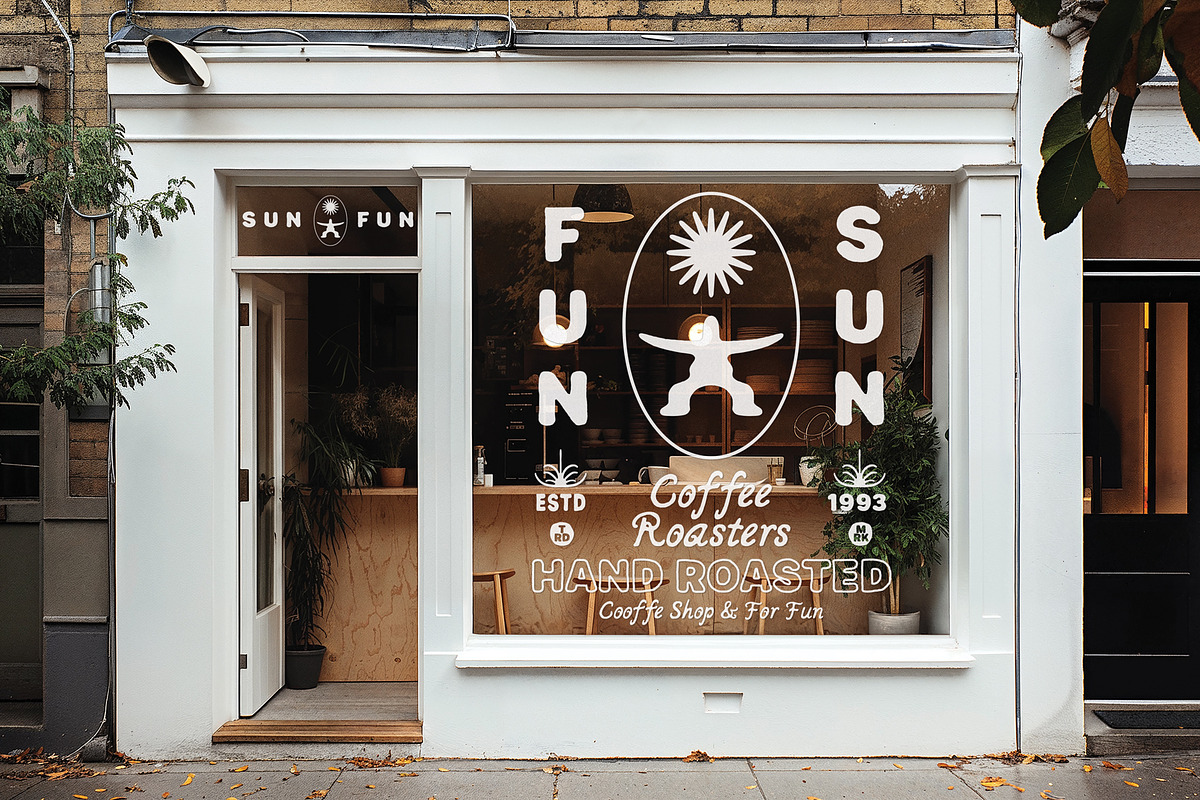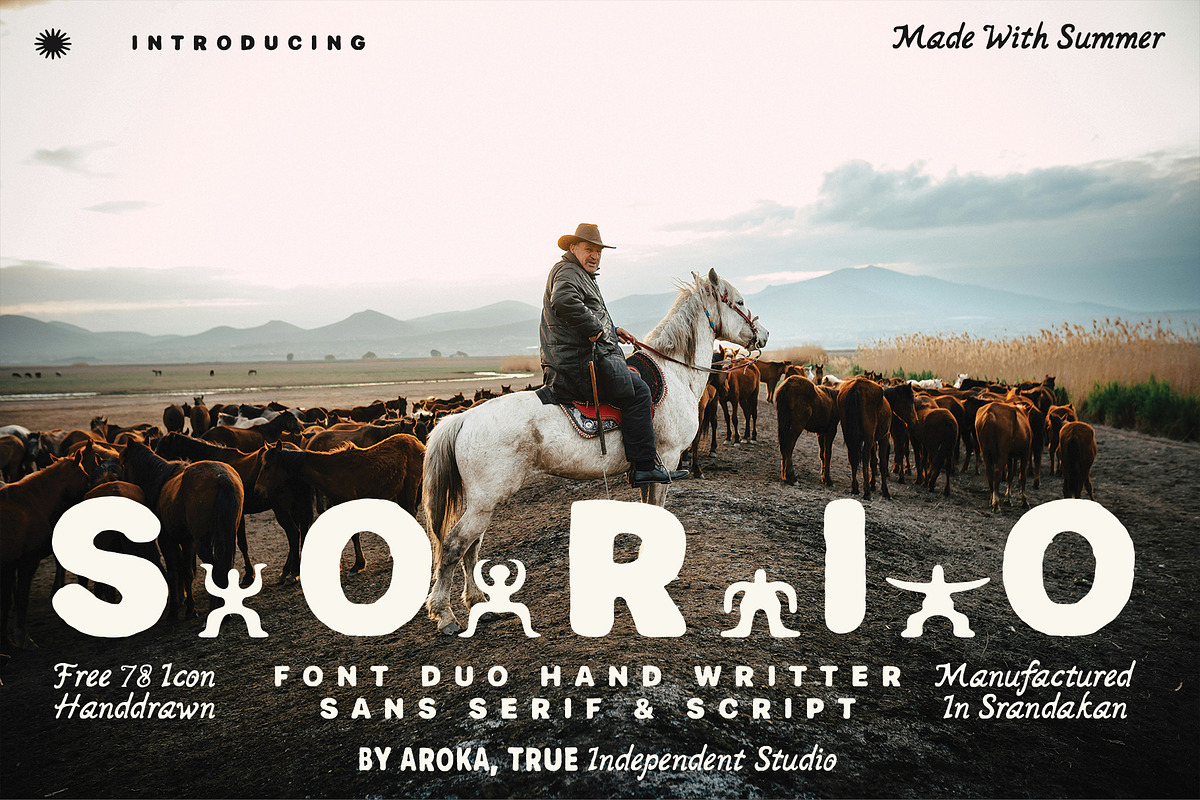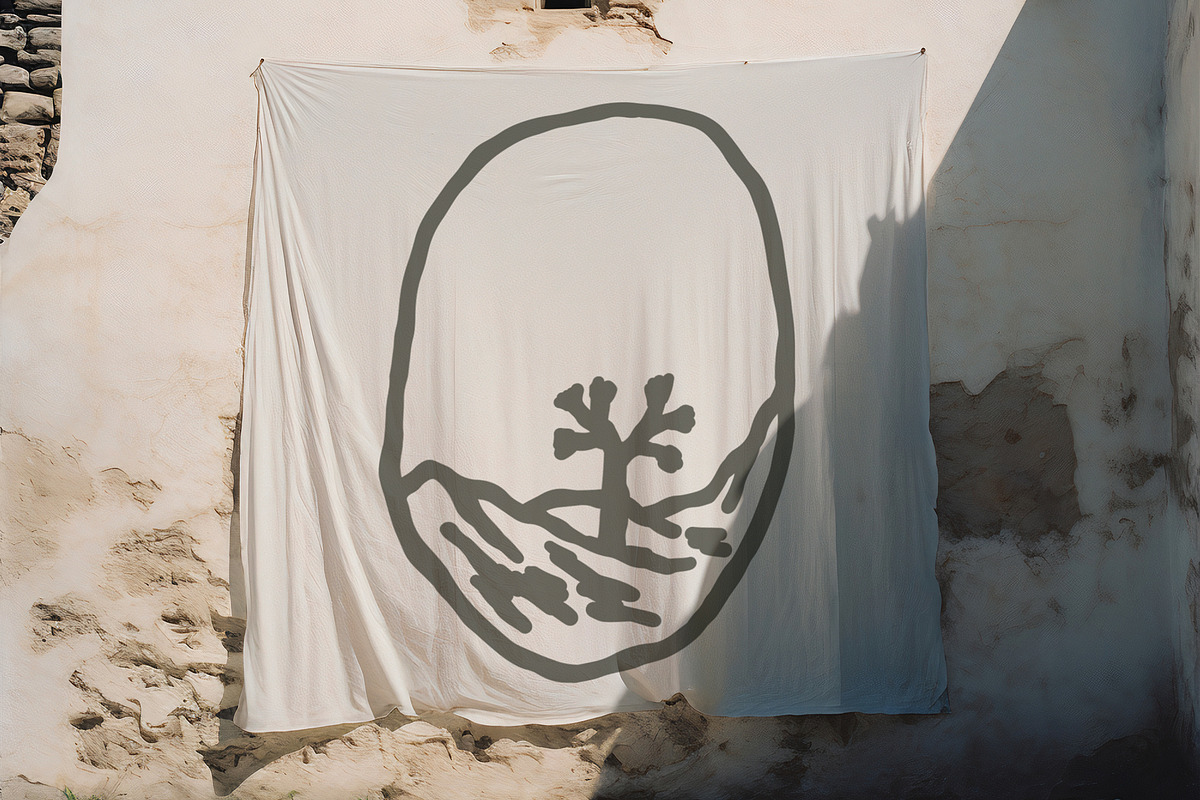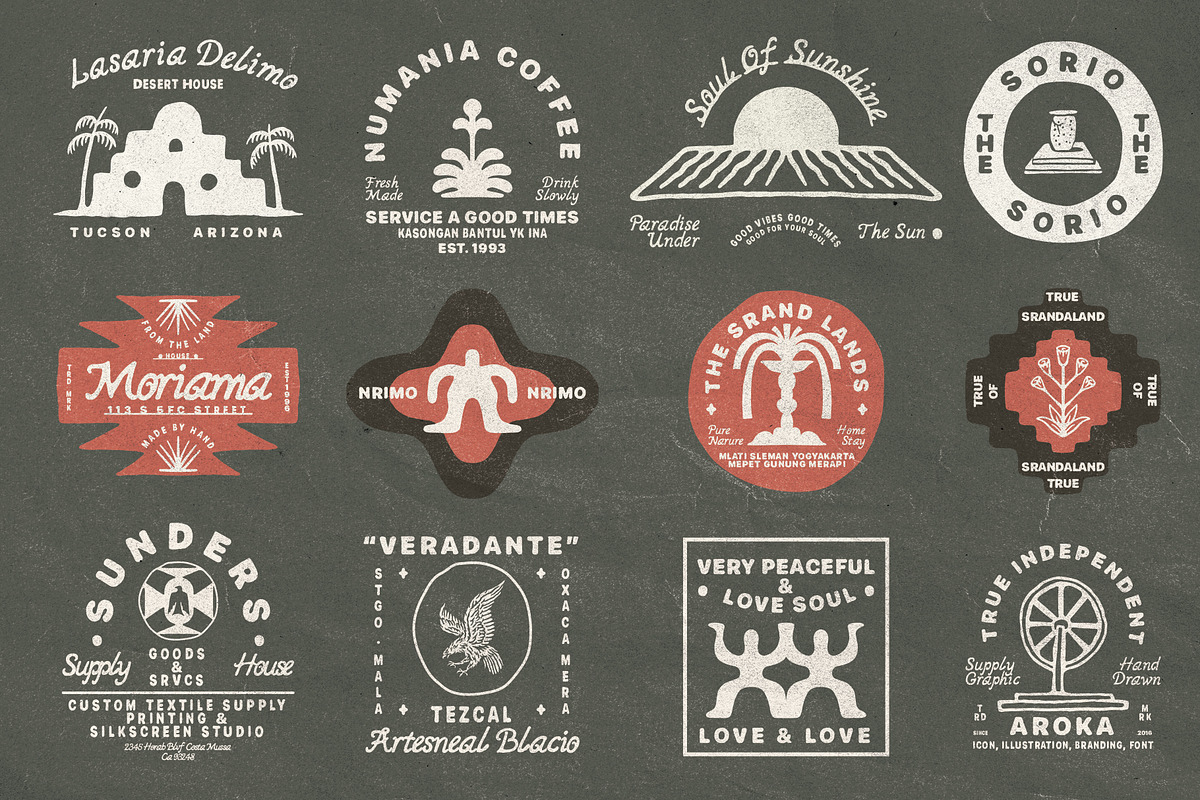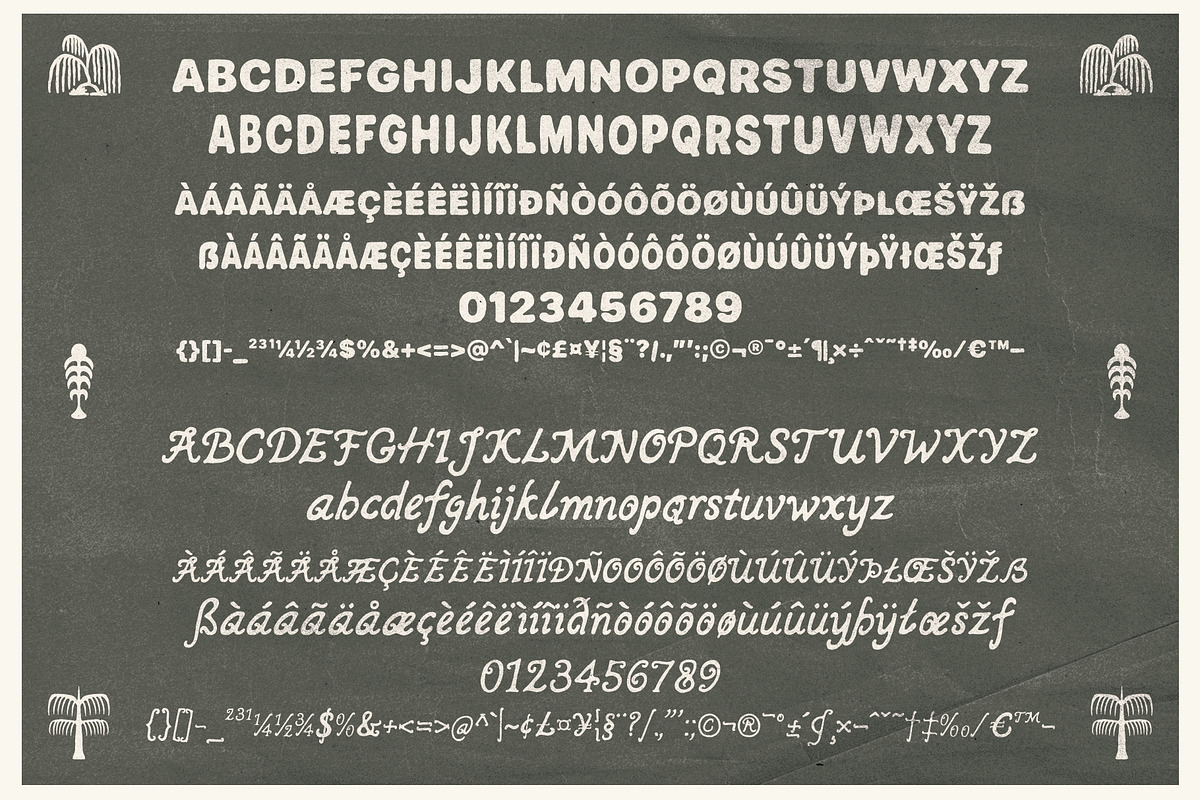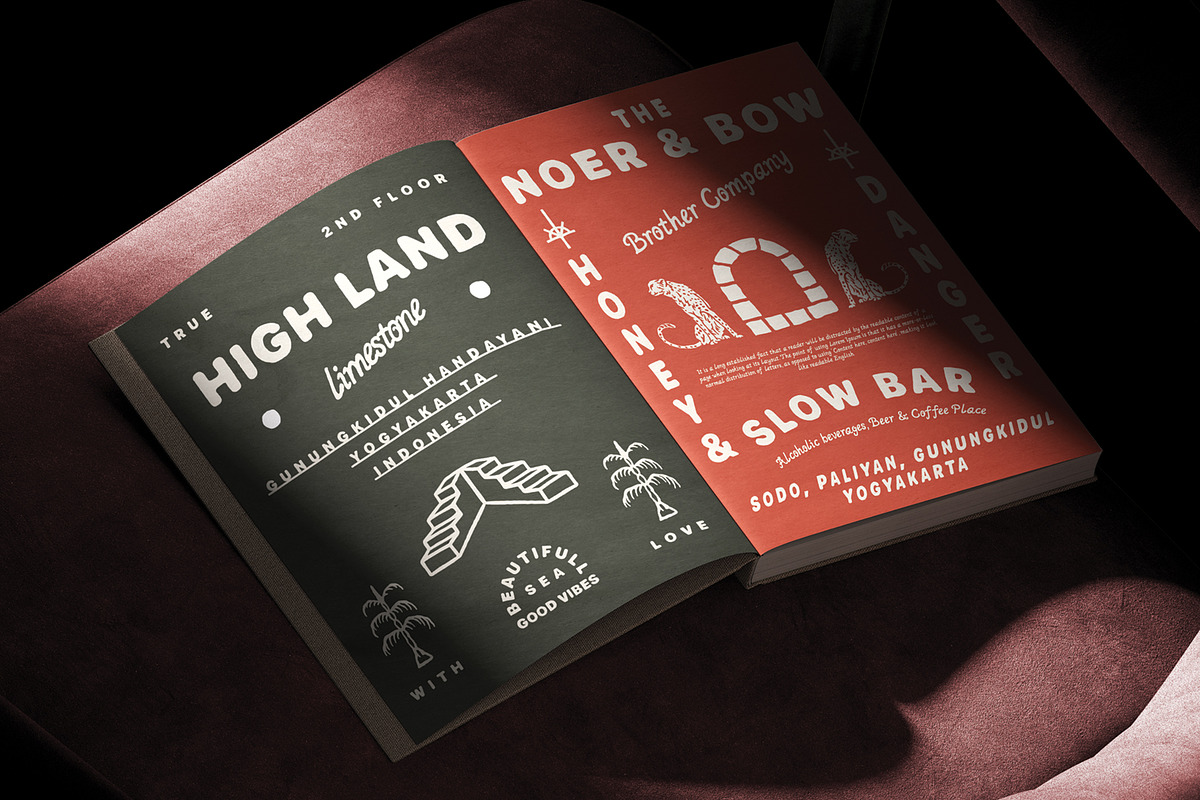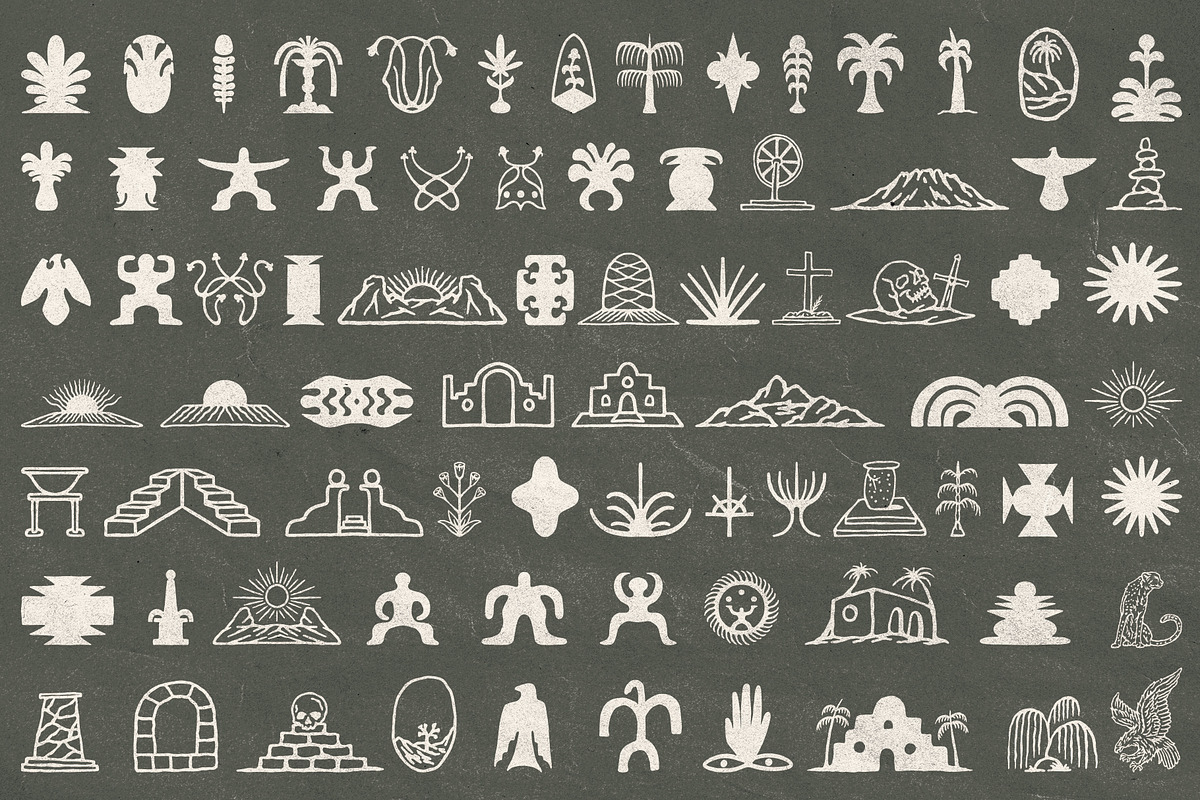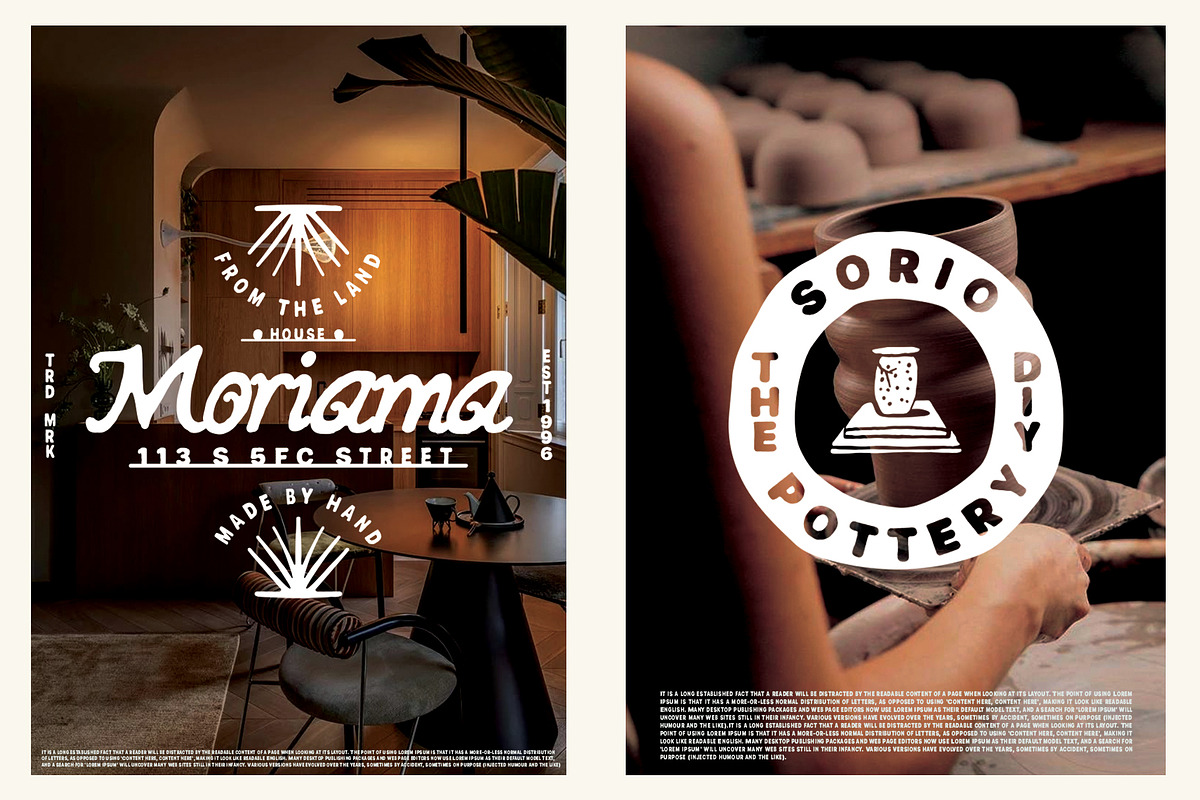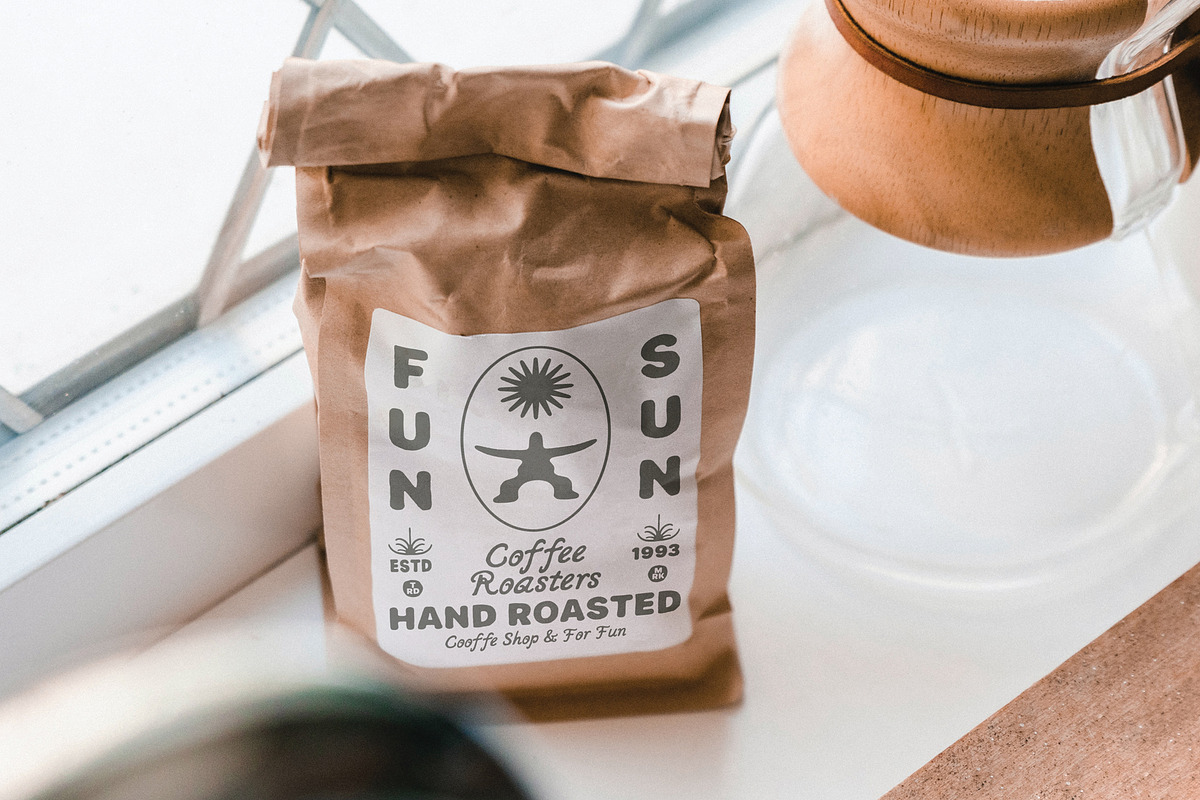
SORIO HAND WRITTEN
This SORIO font was created during the summer in my area. It has two types of fonts: sans serif and script, with a bonus of 78 hand-drawn icons. It's very easy to use. The icons are in Adobe Illustration, SVG, PNG, and PDF formats! Also available in OTF format. Please install it first and use everything in this package! Thank you very much!